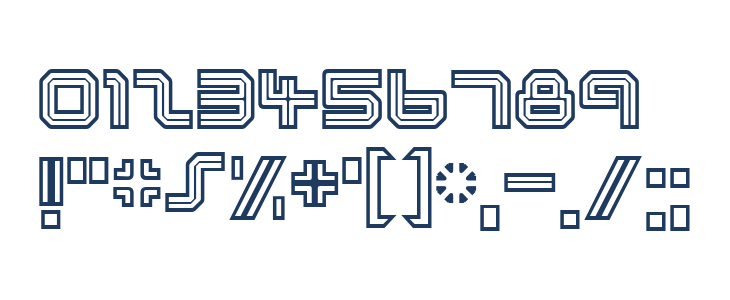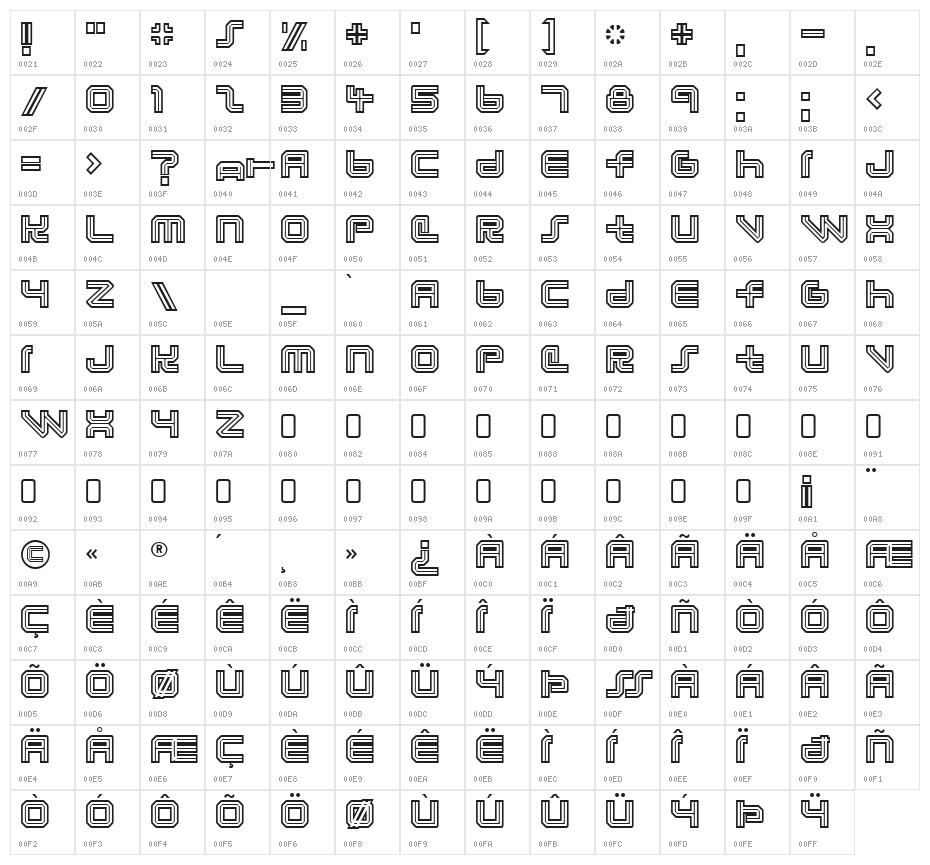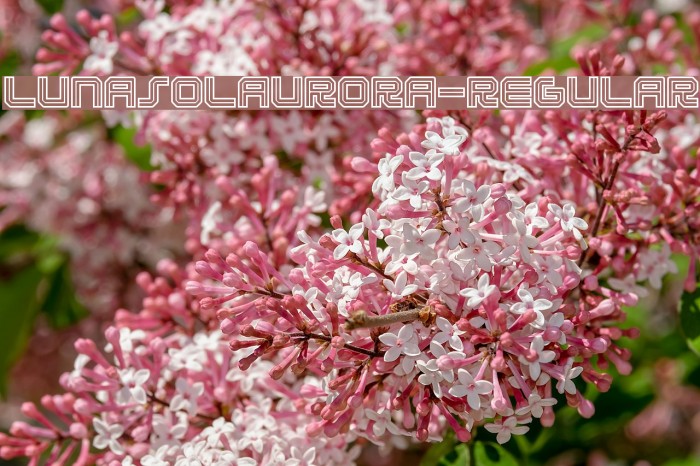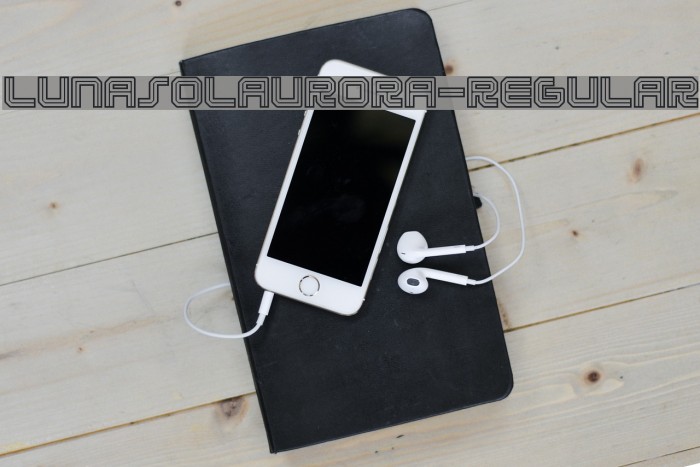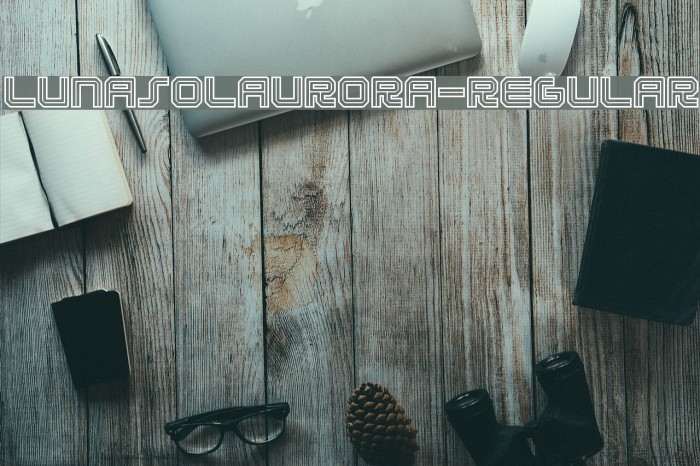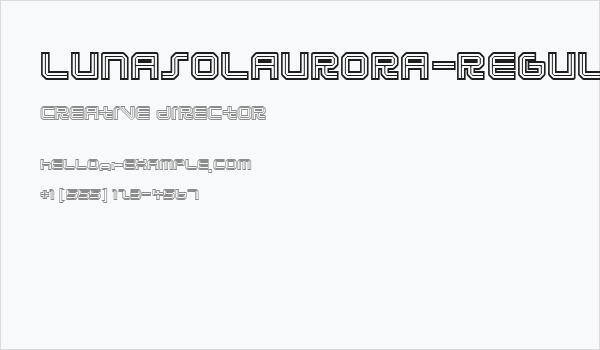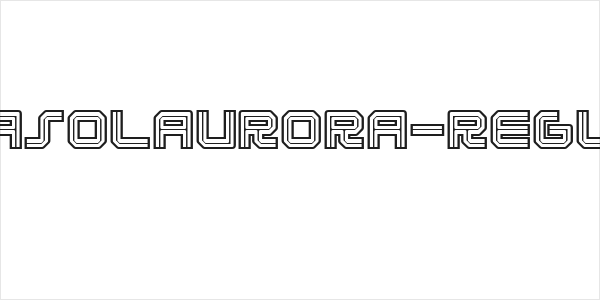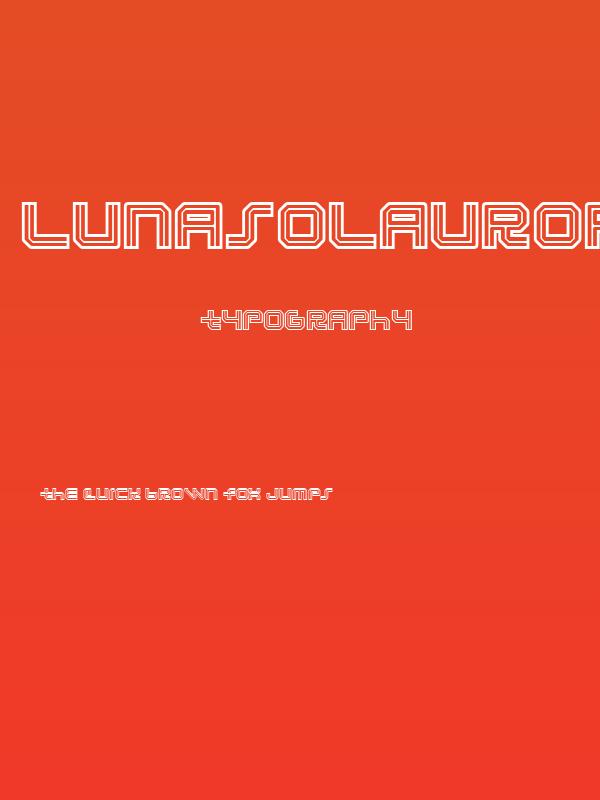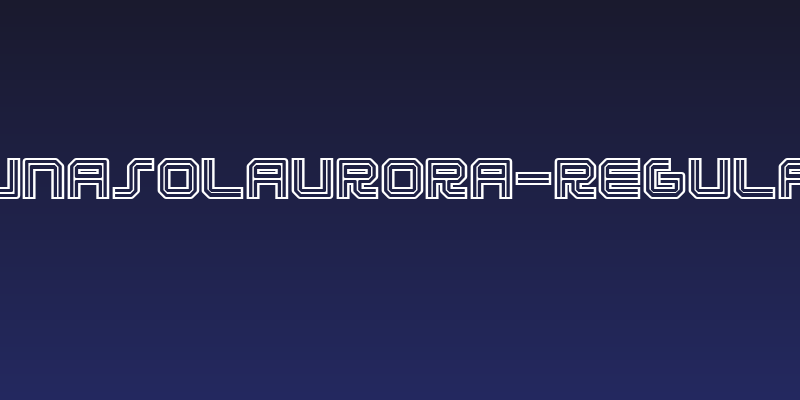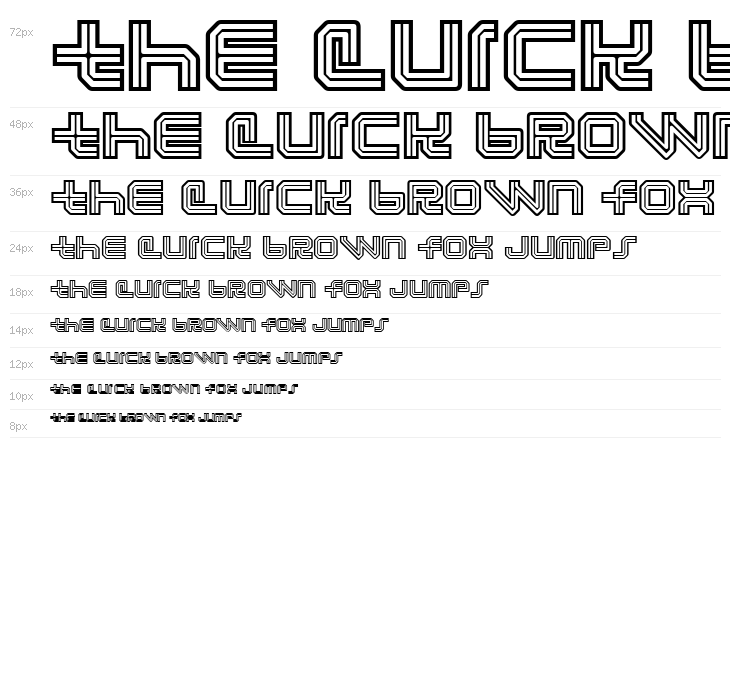
LunasolAurora-Regular Font
LunasolAurora-Regular Description
This font features a futuristic and geometric design with a distinct three-dimensional effect. The characters are outlined with multiple layers, creating a sense of depth and complexity. The uppercase and lowercase letters maintain a consistent style, with angular and straight lines dominating the design. The numerals and special characters follow the same pattern, ensuring uniformity across the typeface. The font's unique structure makes it stand out, with its bold and eye-catching appearance suitable for modern and tech-oriented projects.